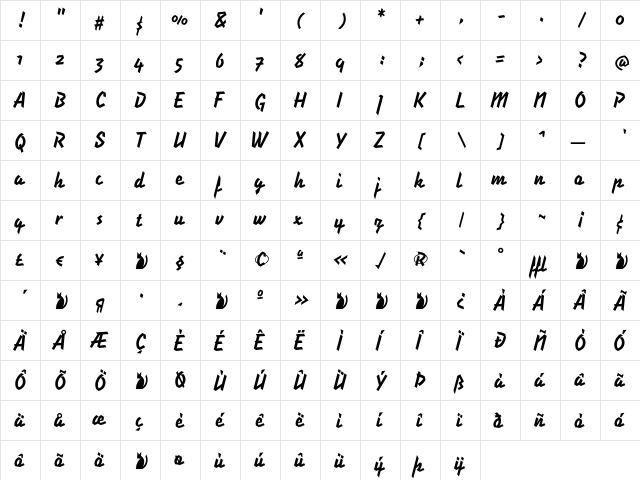
Loupot Bold
Design Context for Loupot Typeface
Loupot is a composed and adaptable typeface that performs quietly and consistently across a wide range of design contexts. The heavy weight commands attention and anchors typographic hierarchies.